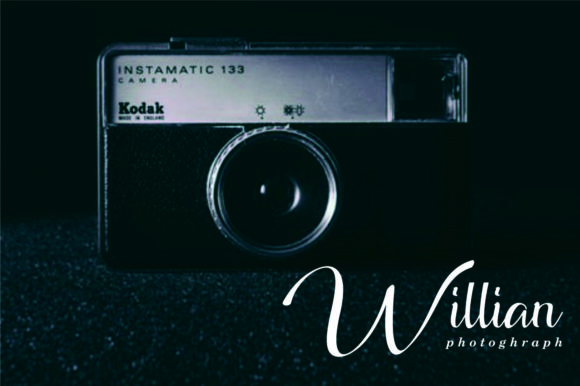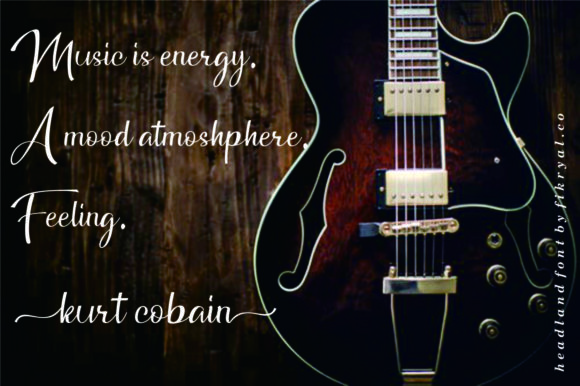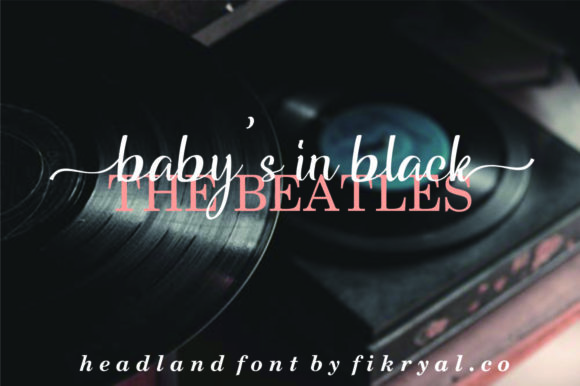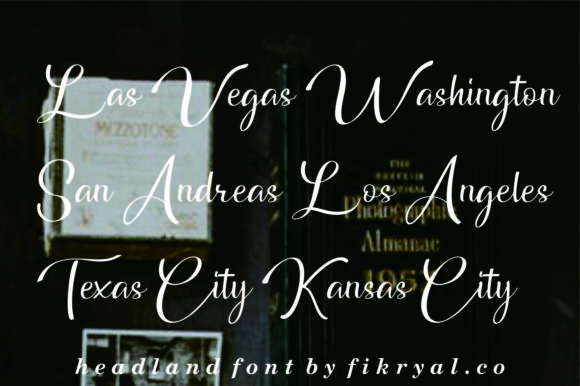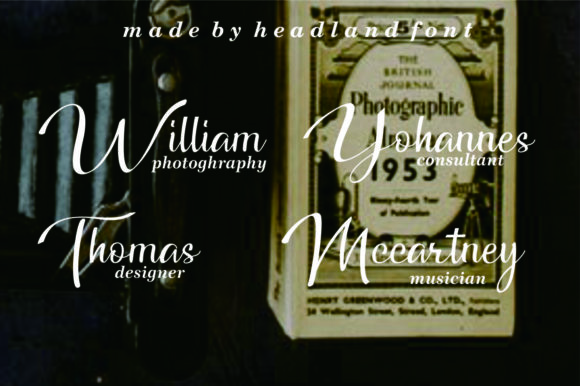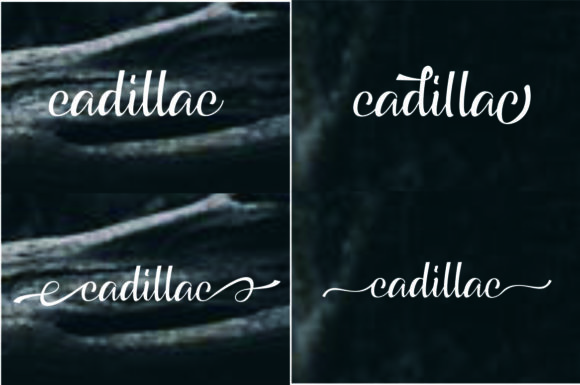
Headland Font
About Headland Font
The Headland is a very neat and artistic script font. Although it’s presented with preview cards with classic and vintage nuances, it can also be used for modern designs.
It can be used for a mockup, quote, book, cover, headline, poster, banner, packaging, and much more!